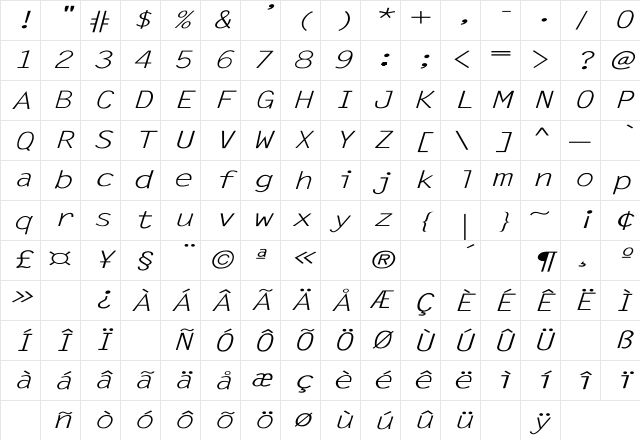
LetterGothic-Italic Ex Regular
LetterGothic-Italic Ex Family
Design Context for LetterGothic-Italic Ex
LetterGothic-Italic Ex takes a clean, functional approach - its unadorned letterforms prioritise legibility and work reliably across screen and print environments. The slanted form adds forward momentum and visual energy.
Font Pairing: Works well alongside a characterful serif or display font that can carry the expressive load while LetterGothic-Italic Ex handles the functional copy.
Pro Tip: Use LetterGothic-Italic Ex for UI labels, navigation, and short-form body copy where clean legibility is the priority.